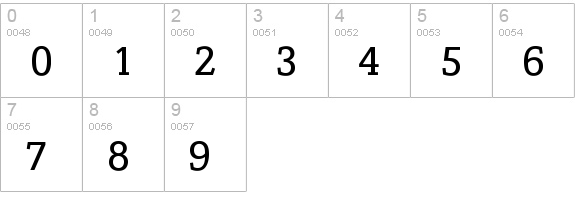
Osiris BQ Regular Font Details
Osiris BQ Regular is the standard, neutral variant in the Osiris typeface family \xE2\x80\x94 well suited to general body text, paragraphs, and standard typographic work.
Osiris BQ Regular font is a sophisticated and modern typeface that exudes elegance and style. With its clean lines and balanced proportions, this font is perfect for a wide range of design projects, from branding to editorial design. The Osiris BQ Regular font offers a timeless and versatile look that will elevate any design it is used in. The best part is that Osiris BQ Regular font is available for free download at FontsMarket.com. This means that you can easily access and use this high-quality font in your projects without any cost. Don't miss out on the opportunity to enhance your designs with the beautiful Osiris BQ Regular font - download it for free today at FontsMarket.com!